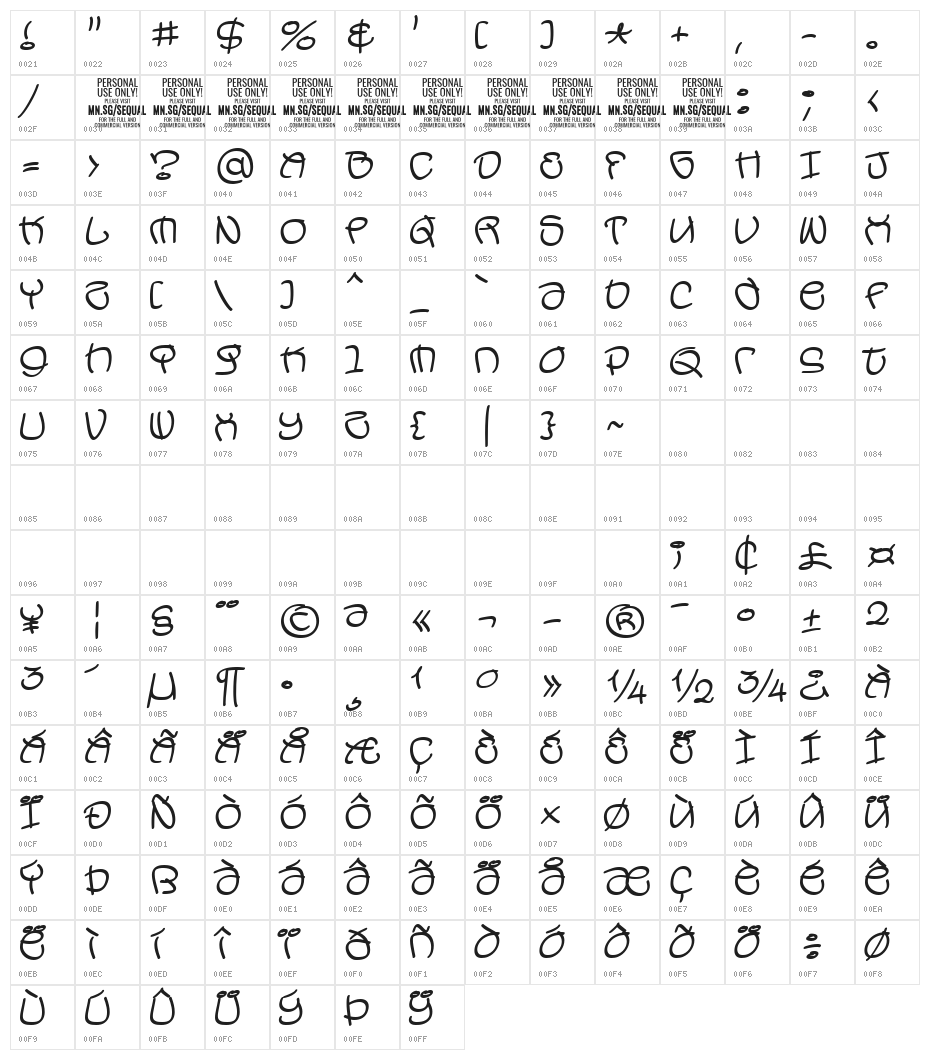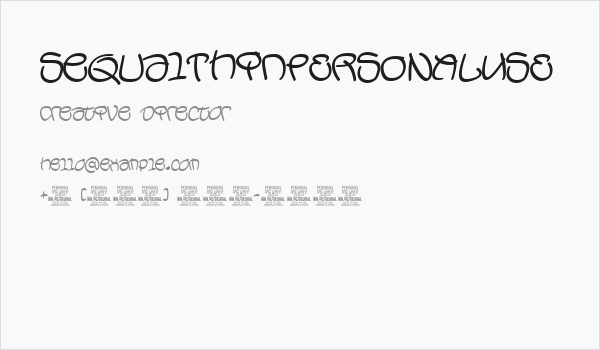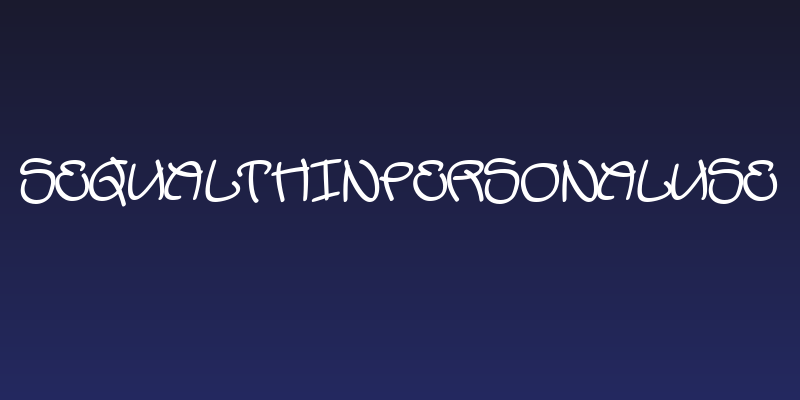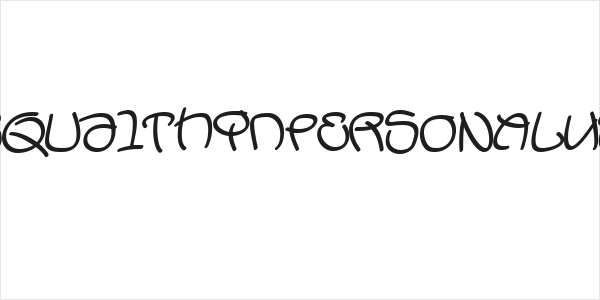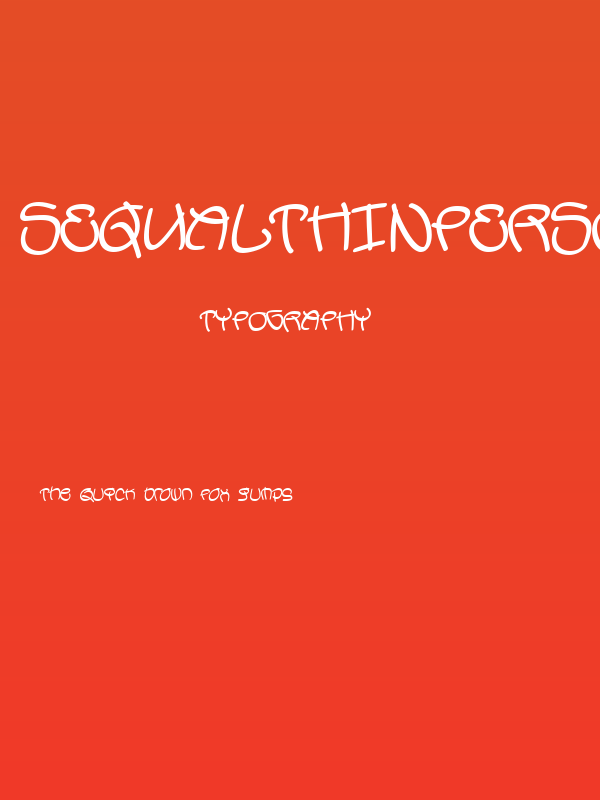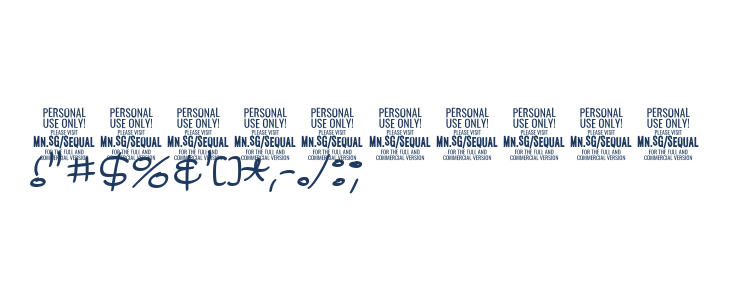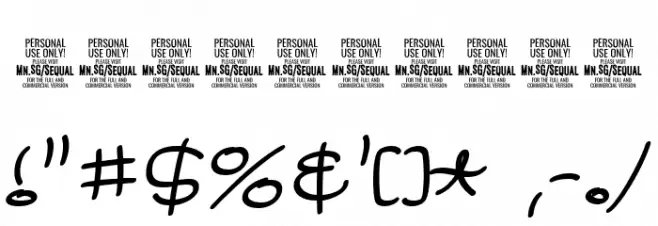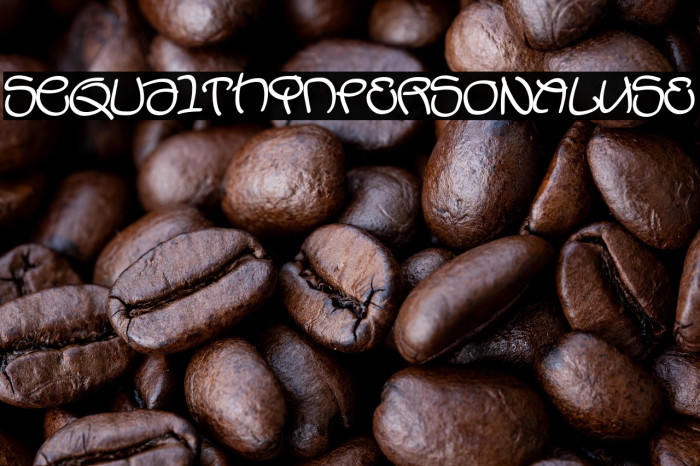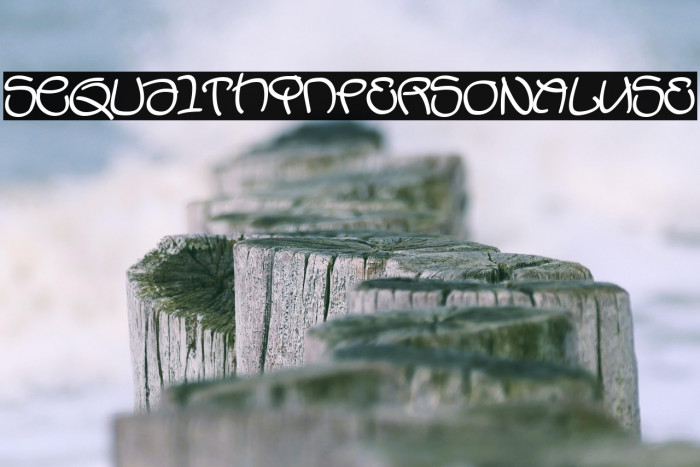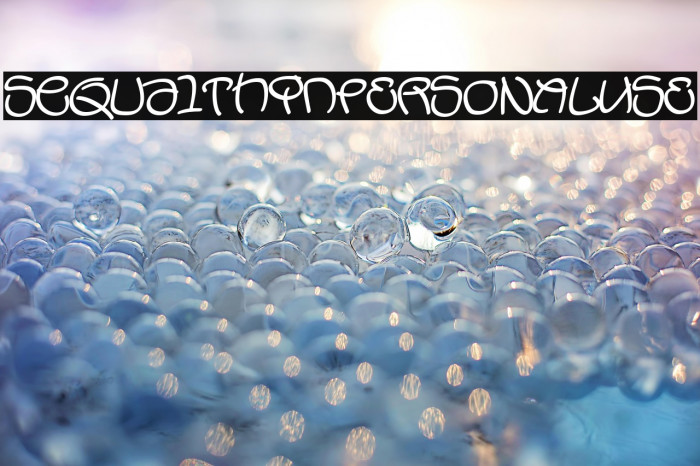
SequalThinPERSONALUSE Font
SequalThinPERSONALUSE Description
This font features a unique, artistic style with a handwritten feel. The characters are fluid and connected, giving it a casual yet sophisticated appearance. The uppercase and lowercase letters maintain a consistent flow, with rounded edges and a slight slant that adds to its dynamic nature. The numerals and special characters are designed to match the overall aesthetic, ensuring a cohesive look across all text. This font is ideal for projects that require a personal touch, such as invitations, greeting cards, or creative branding materials.
| Use Case | Logos, Headlines, Creative projects |
| Proposed Projects | Ideal for invitations, greeting cards, creative branding, and personal projects. |